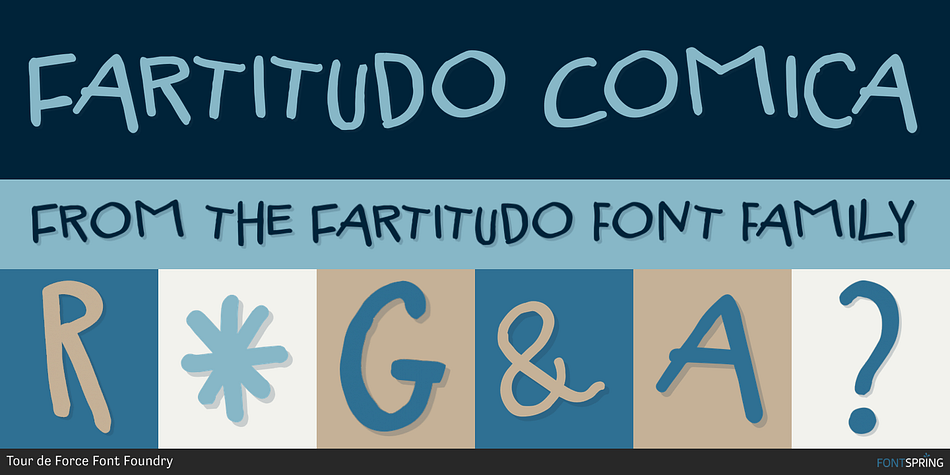
Fartitudo Comica
Designed by Dusan Jelesijevic, Fartitudo is a grunge, hand display and kids font family. This typeface has three styles and was published by Tour de Force Font Foundry.
A bit provocative, catchy and bouncy family for modern package designs, posters, labels, t-shirts etc.